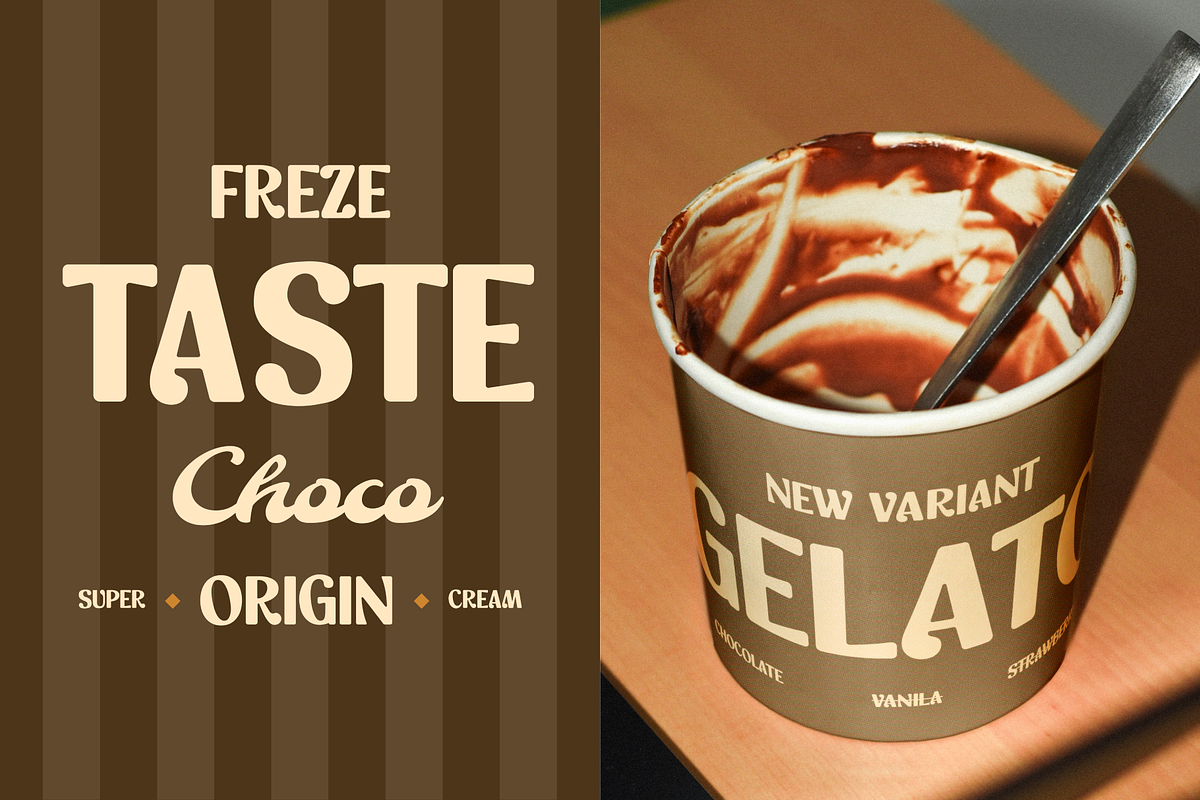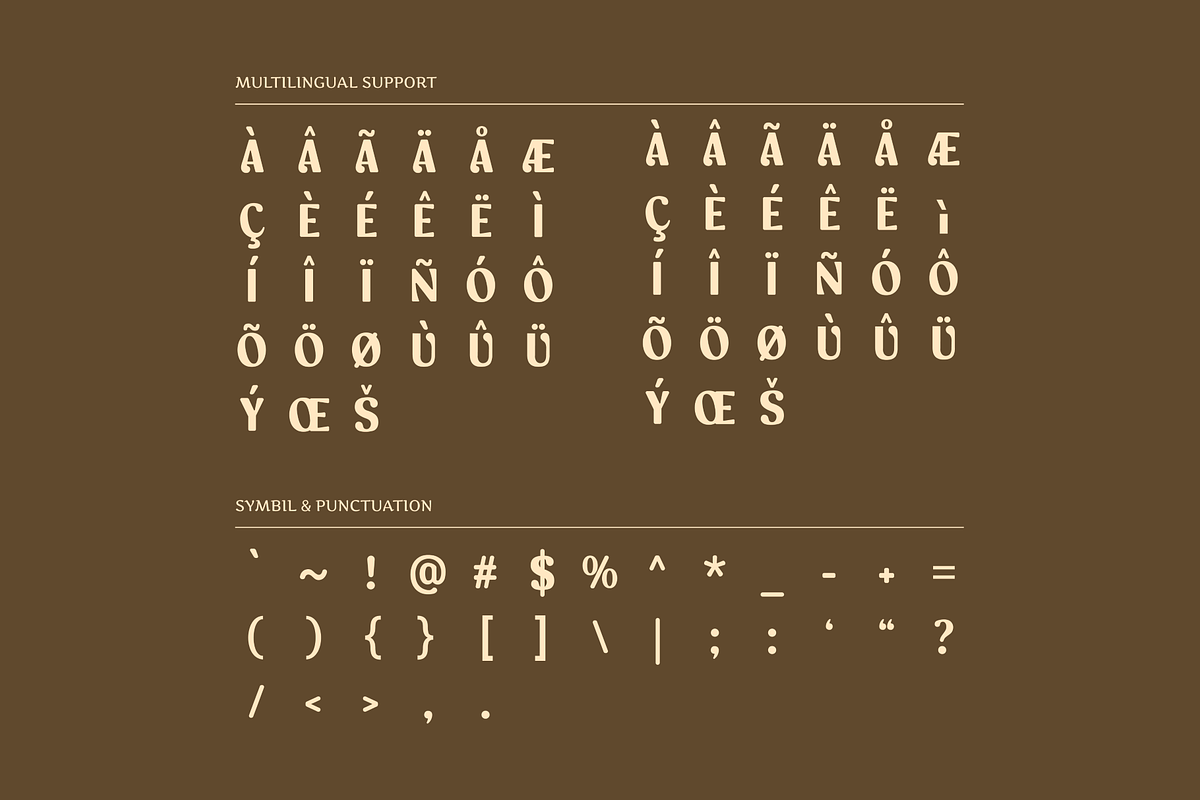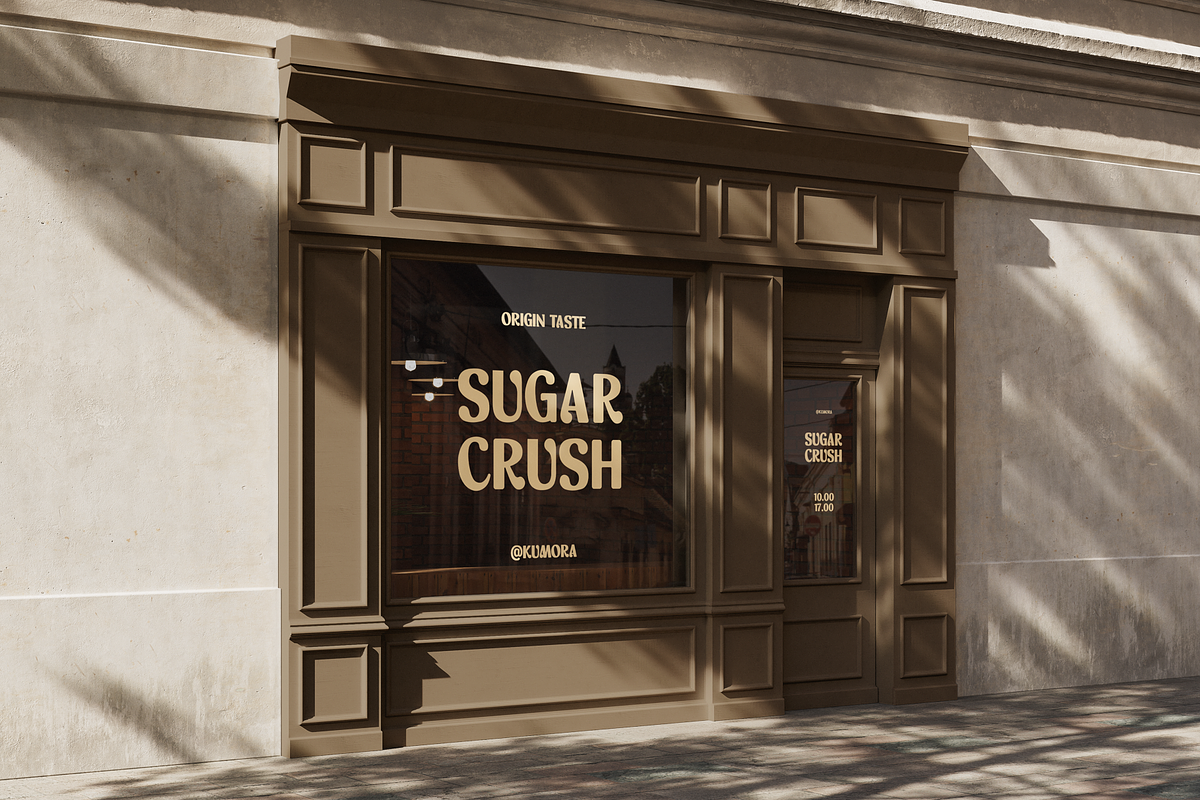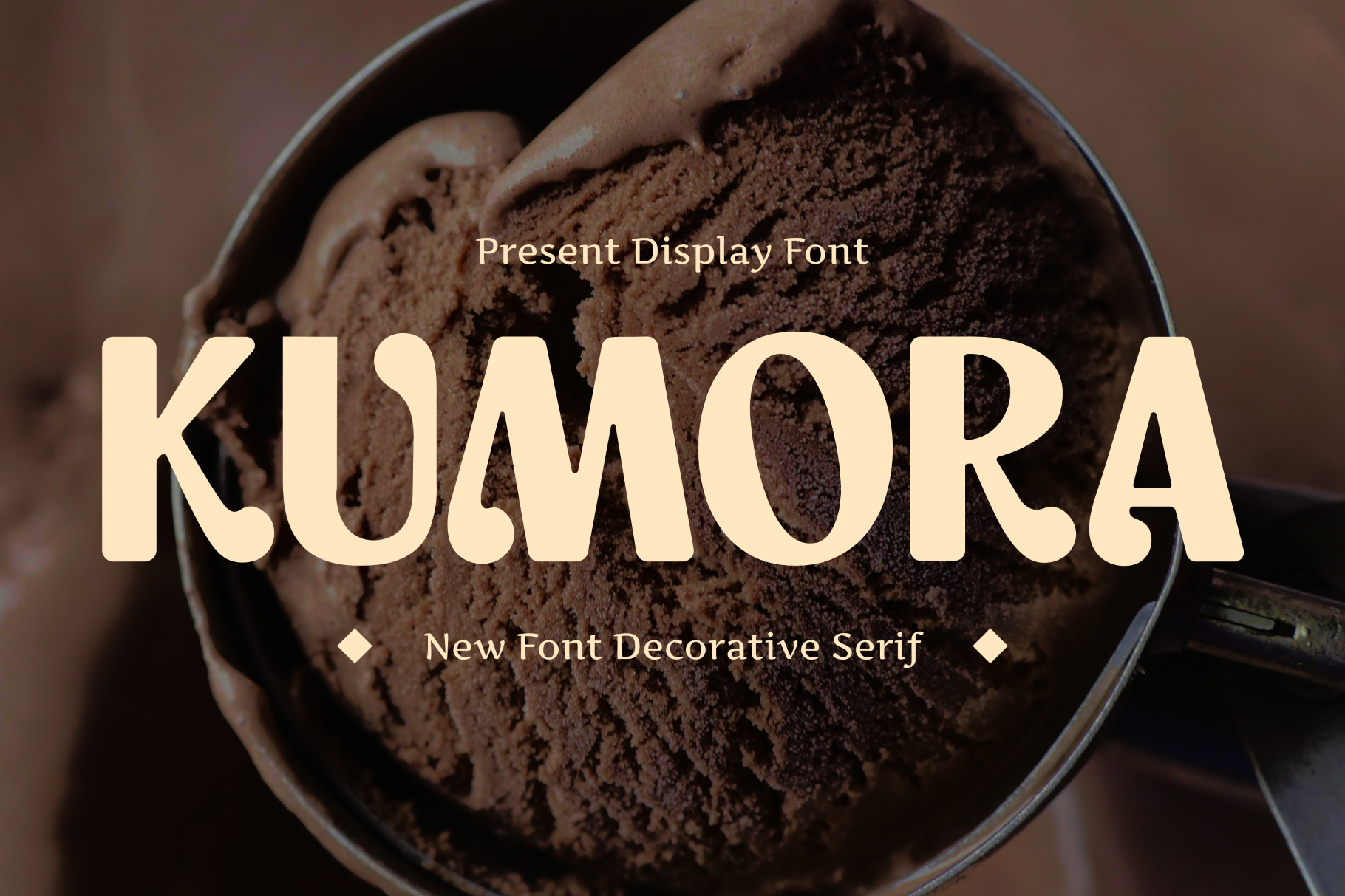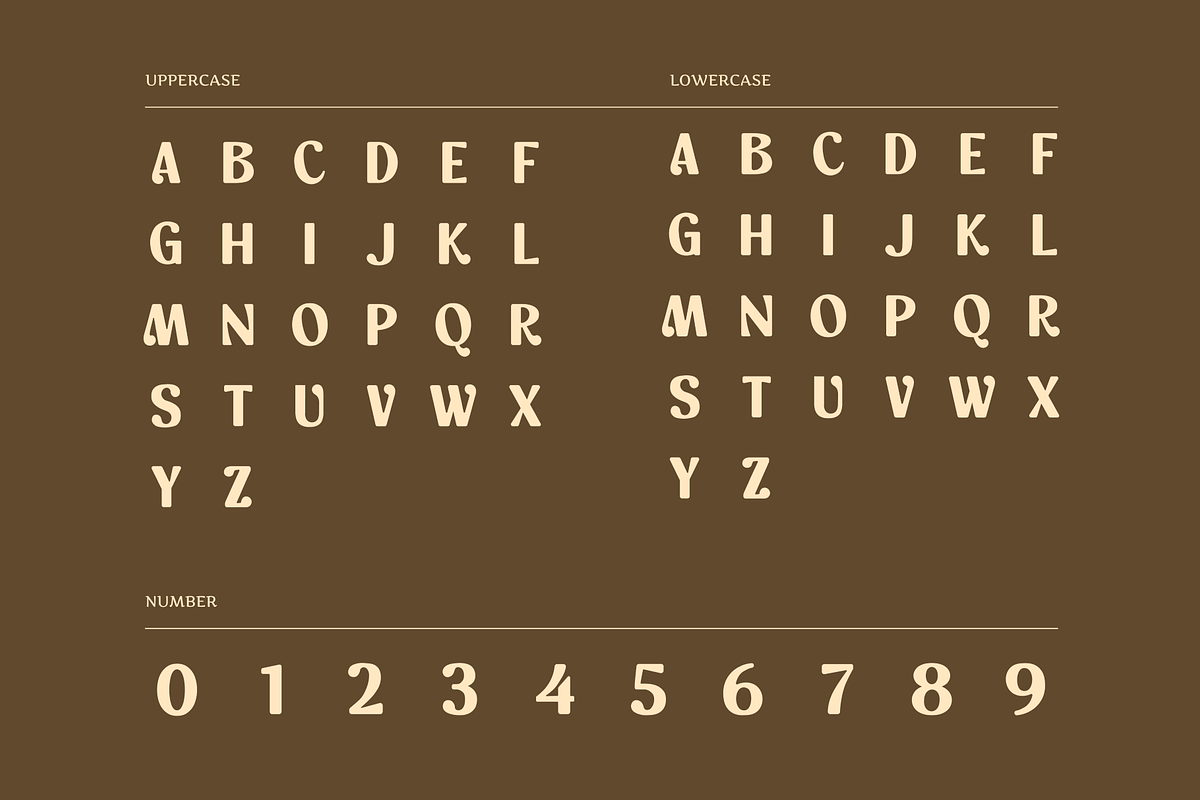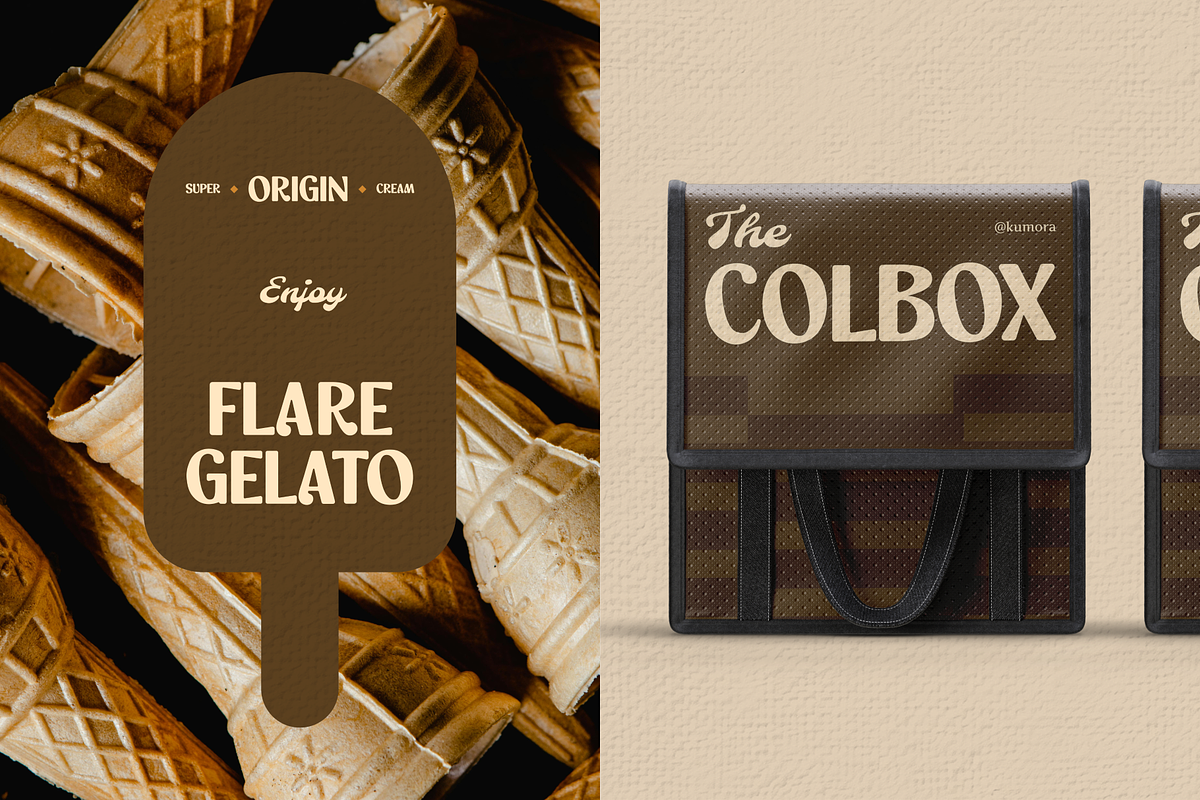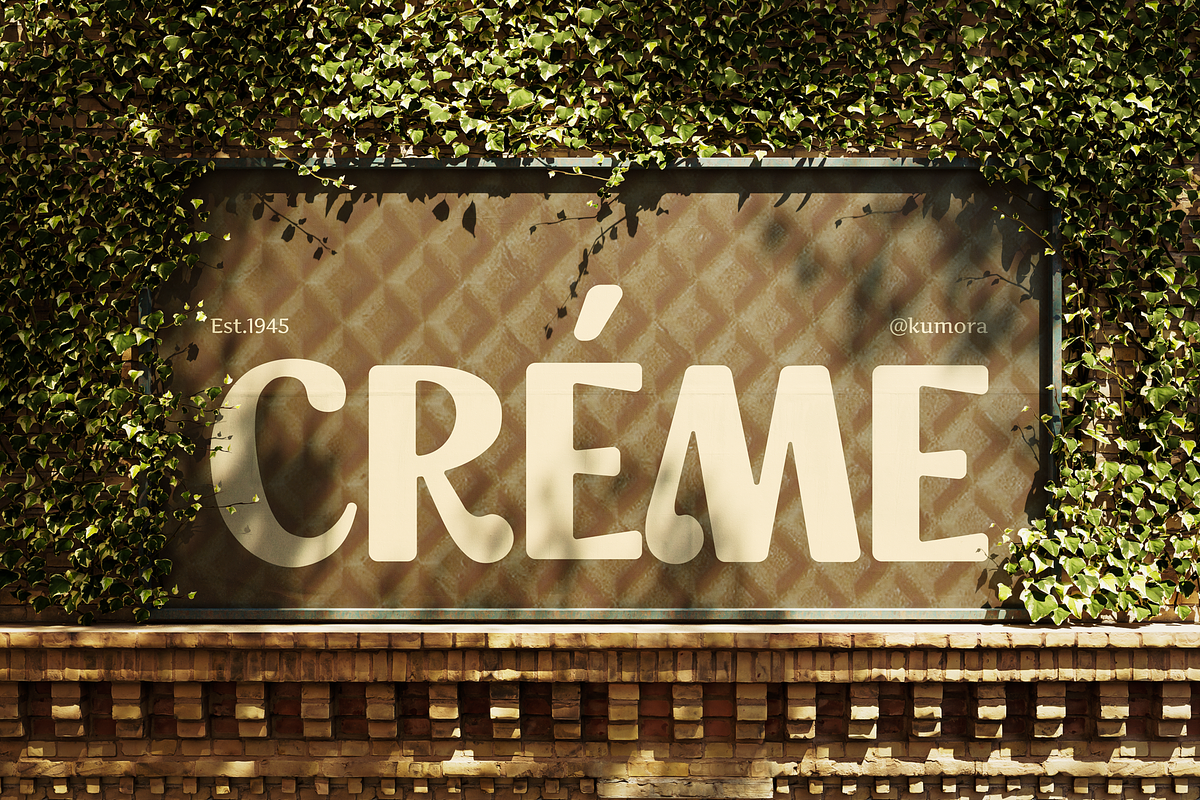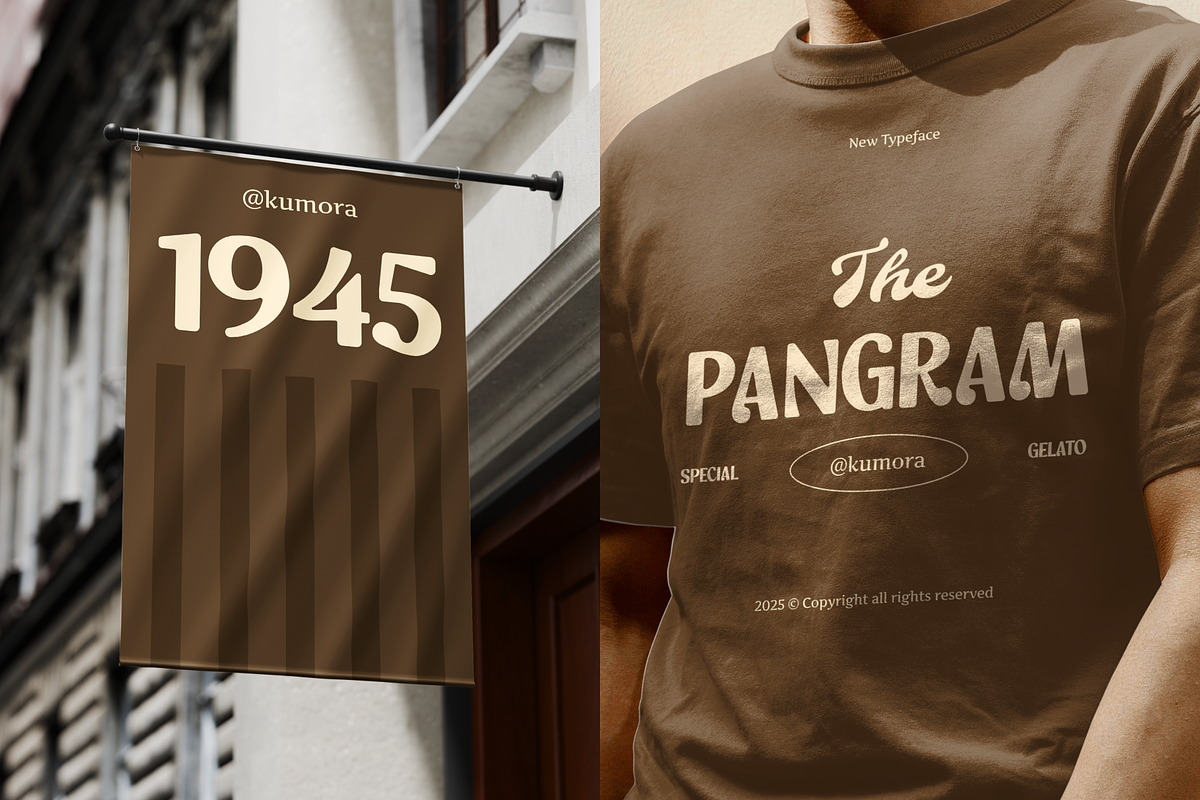
Kumora - Display Serif Font
Kumora is a decorative display serif font with soft curves and playful strokes, perfect for branding, packaging, posters, and creative headlines. Its warm, handcrafted character brings a unique charm to any design. Ideal for boutique businesses, food brands, lifestyle content, and artistic visual identities.